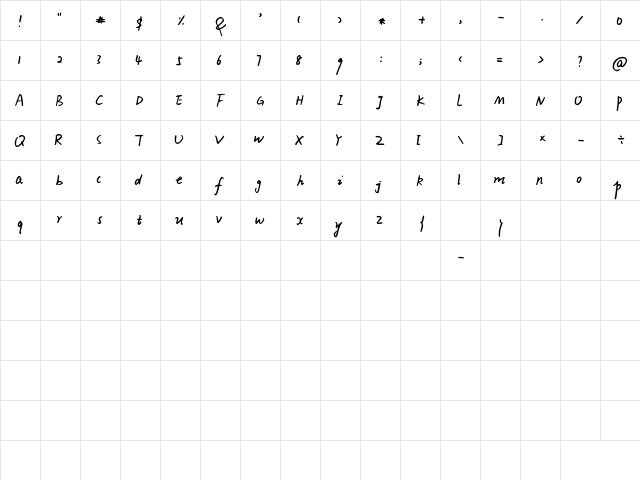
Xiao Gao Regular
| Designer | Kimberly Geswein |
Design Context for Xiao Gao Typeface
Xiao Gao is a composed and adaptable typeface that performs quietly and consistently across a wide range of design contexts.
Pro Tip: Pair Xiao Gao with a font of contrasting weight or personality to build a more expressive typographic hierarchy.